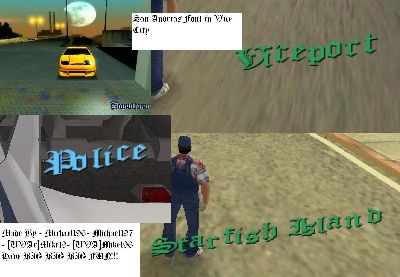
GTA:San Andreas font in Vice City
ok this mod will change your text in the Game in to San Andreas font
like in GTA:San Andreas
diese fonts sin scheisse ,die buchstaben sind net in der selben höhe und manche sind schwer lesbar , daswegen sieht es nicht gut aus und manchmal braucht mann zeit um zu raffen was da steht...